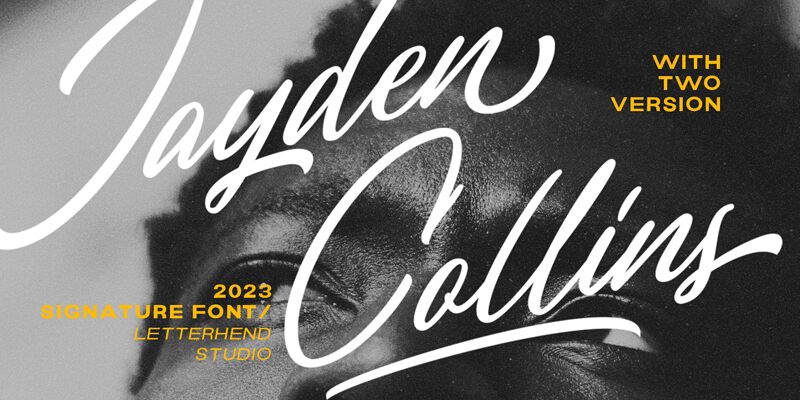
Jayden Collins One font by Letterhend Studio is a free handwritten font with a bold, contemporary style. This flowing script is designed to resemble the elegant strokes of various handwritten forms that are intricate and refined. The uniformity within the letter sizing only adds to this modern display font’s originality and energetic presence online and printed.
This signature-style typeface highlights and elevates invitations, branding, magazines, headlines, social media posts, advertisements, cards, packaging designs of clothing items and cosmetics as well as decorations (mugs etc).